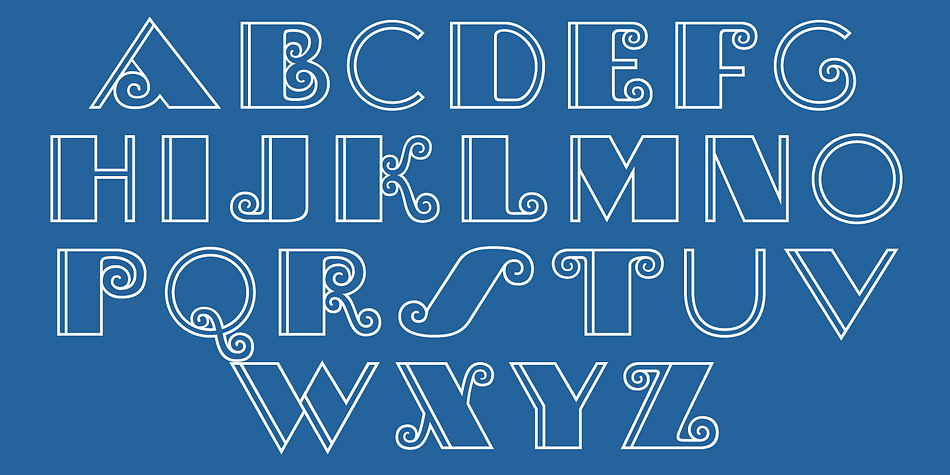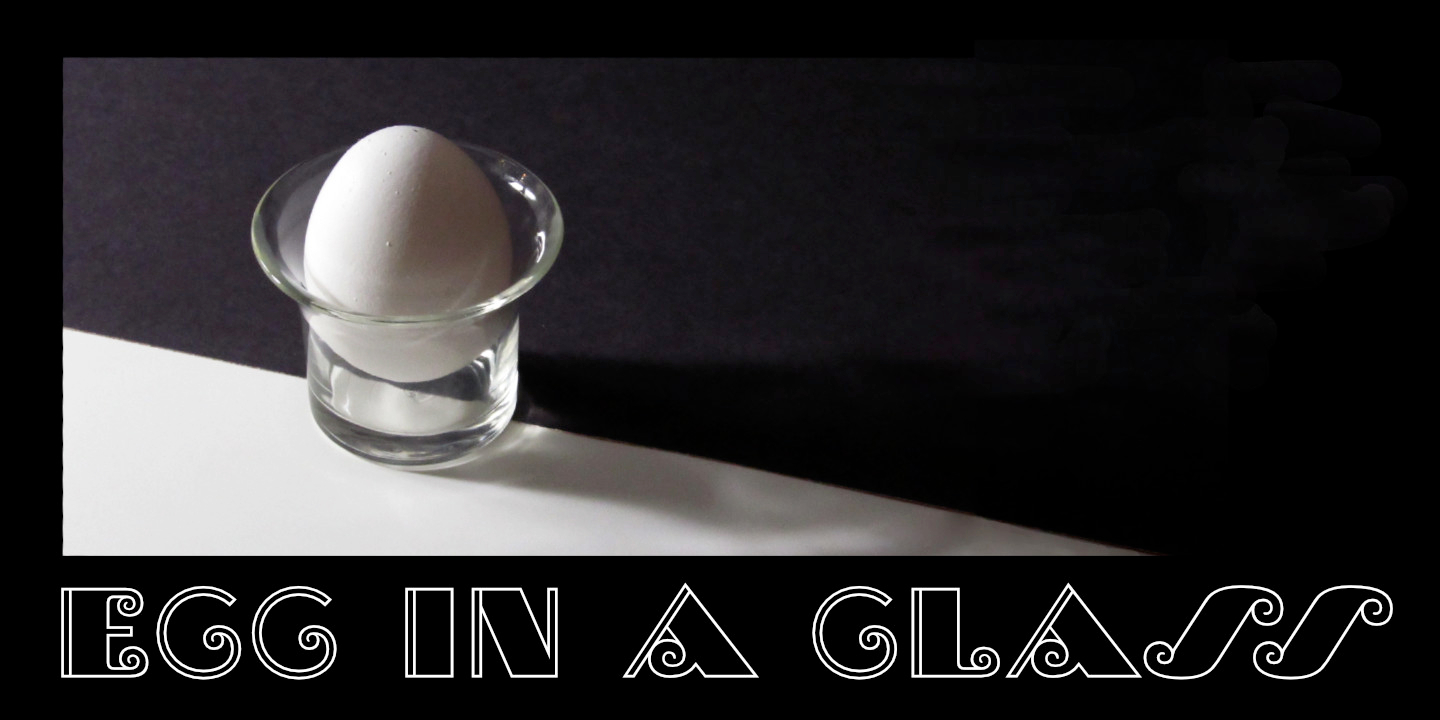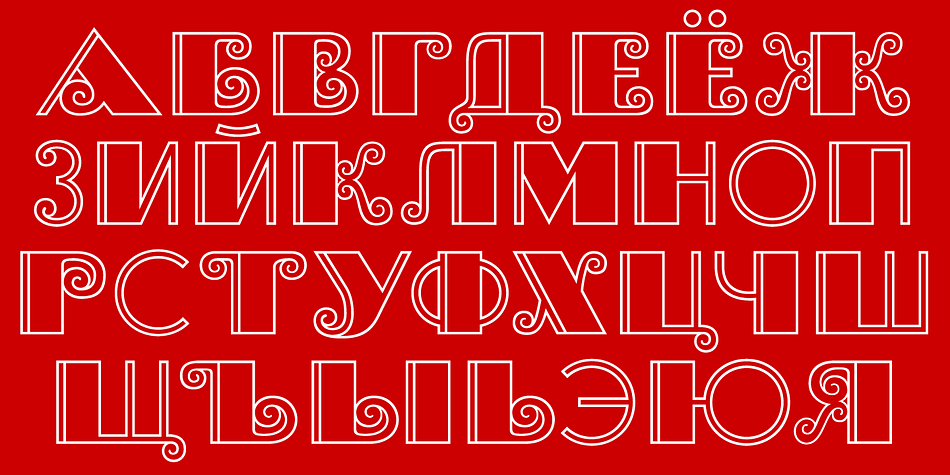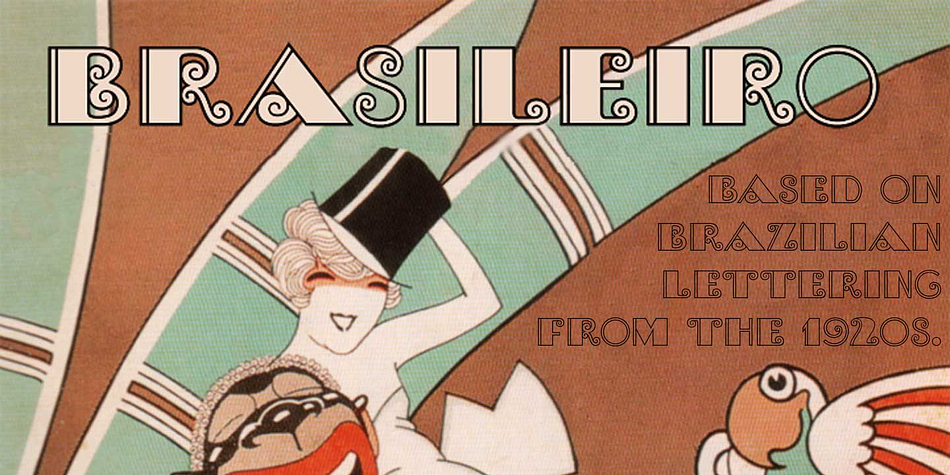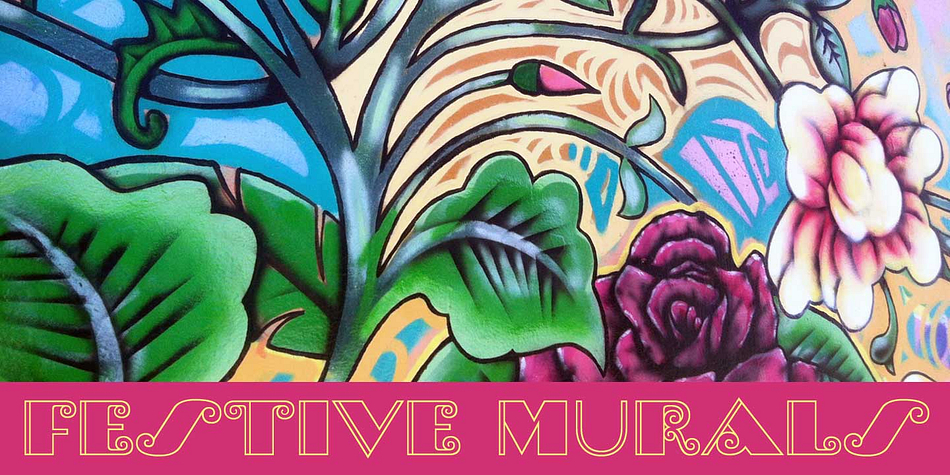
Brasileiro is a retro and art deco font published by CastleType.
Brasileiro™, a CastleType Original, is a new art deco design inspired by the seven letters used for the logotype of the Brazilian magazine ‘Para Todos’ from the 1920s. Described as “great fun” and “impressionante e exuberante”, Brasileiro captures the playful and joyful spirit of Brazil.